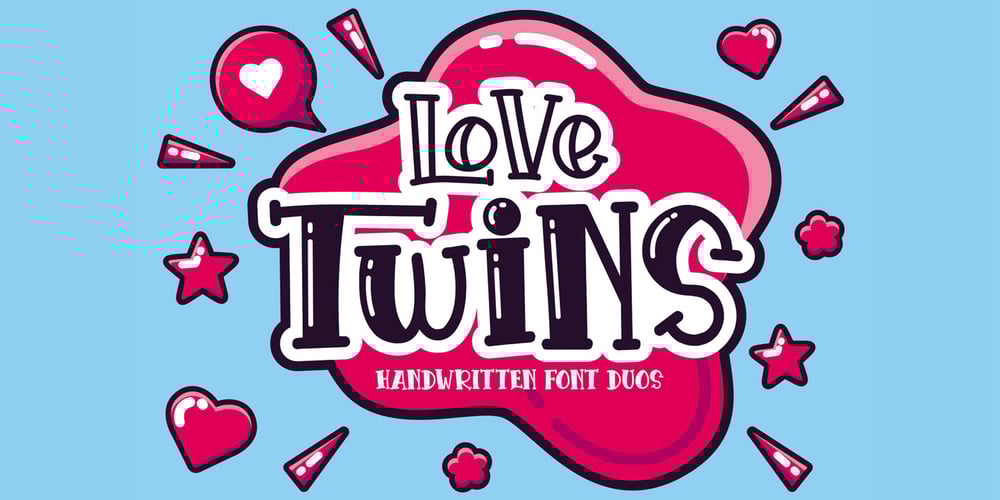
Love Twins Solid Font Family was designed by Sipanji and published by Sipanji21. Love Twins Solid contains 2 styles and family package options. Say hello to Love Twins font.Made with love and joy. Comic look, so it will make your design more beautiful, cute, fun, and colorful.outline and solid style inside.